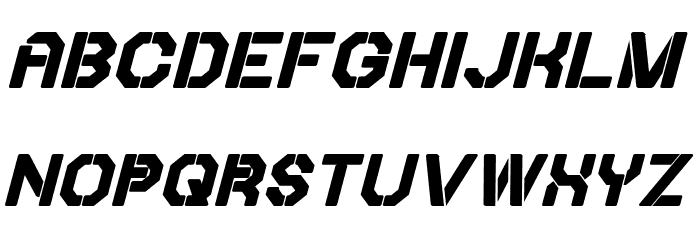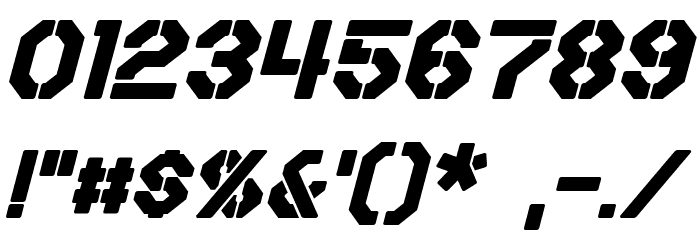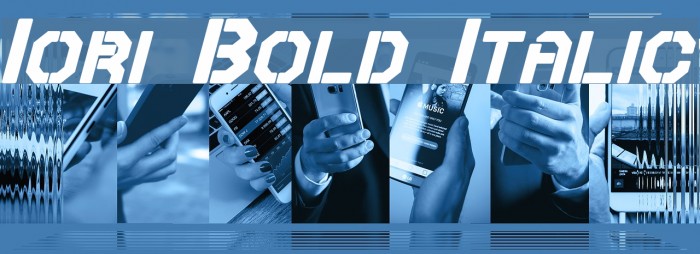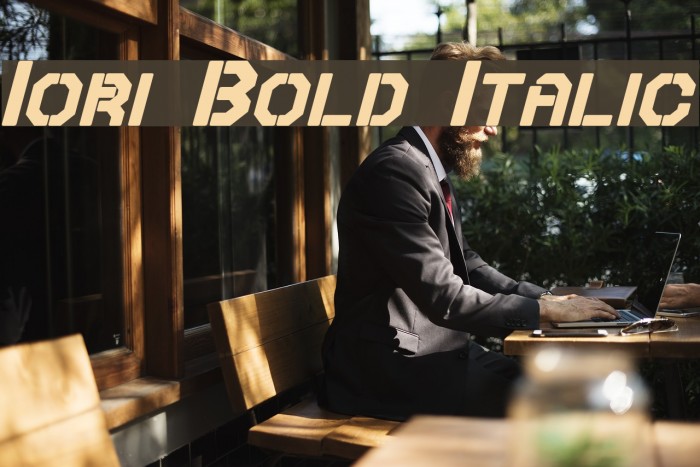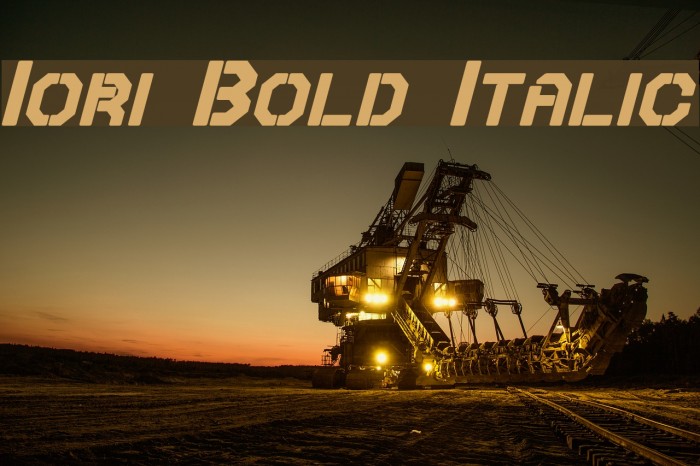
Iori Bold Italic Font
This font features a bold and italicized style with a distinct geometric and angular design. The characters are constructed with sharp edges and diagonal cuts, giving it a futuristic and dynamic appearance. The uppercase and lowercase letters maintain a consistent style, with the lowercase slightly smaller but equally bold. The numbers and special characters follow the same angular theme, ensuring uniformity across the font. This design is eye-catching and suitable for projects that require a modern and edgy look.
A bold, italicized font with a geometric and angular design, perfect for modern projects.
- Proposed Projects: Ideal for branding, posters, video game titles, and any project needing a futuristic and bold aesthetic.